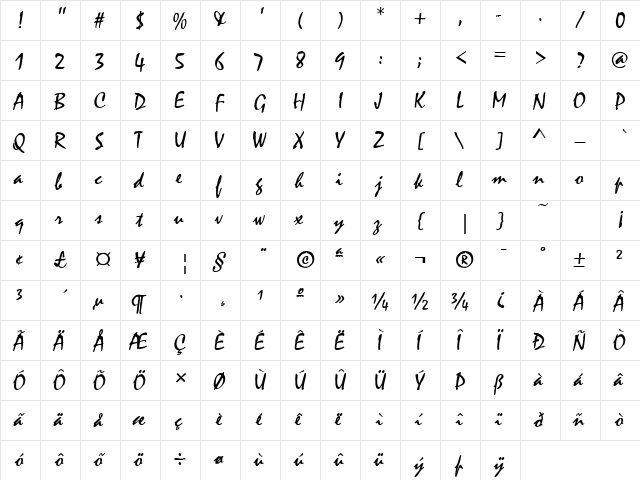
GE Misty Script Normal
Design Context for GE Misty Script Typeface
GE Misty Script flows with the natural rhythm of handwritten lettering, making it ideal for designs that call for warmth and personal expression.
Font Pairing: Combine GE Misty Script with a simple geometric sans for maximum contrast — the tension between flowing curves and clean structure is a classic typographic pairing.
Pro Tip: Pair GE Misty Script with a clean sans-serif for supporting text. The contrast between fluid script and geometric structure creates an elegant typographic hierarchy.